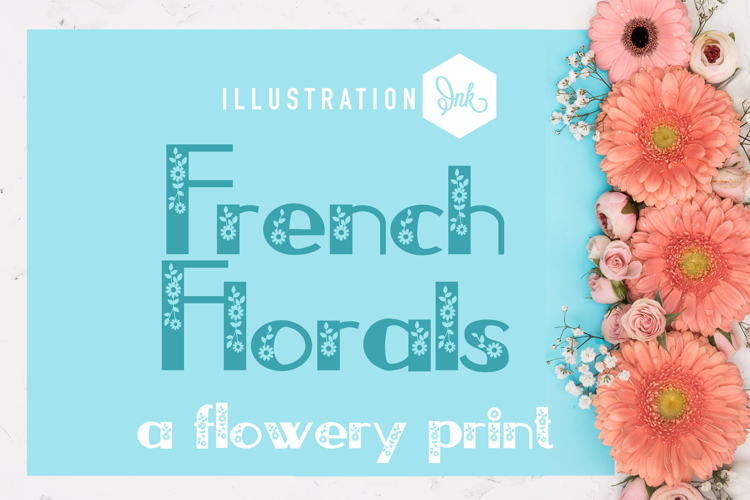
French Florals Font Family
This hand-crafted font is a sports florals with six variations.
• The letters are not perfectly uniform in size or shape.
• There may be slight variations in the spacing between letters and words.
• The font may have a "wiggly" or "squiggly" appearance.
• The font may be difficult to read at small sizes.